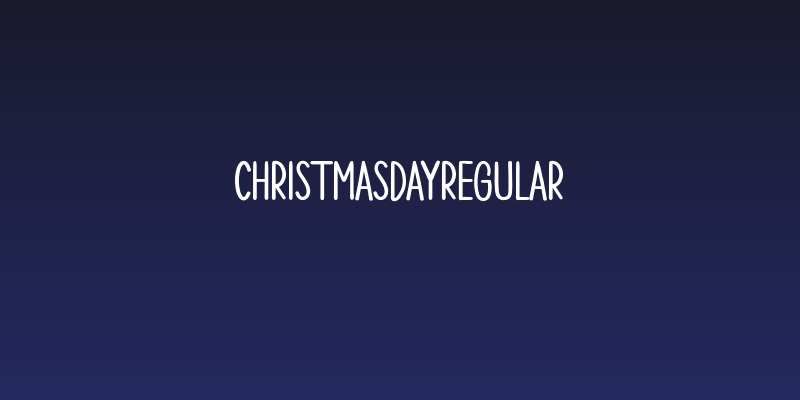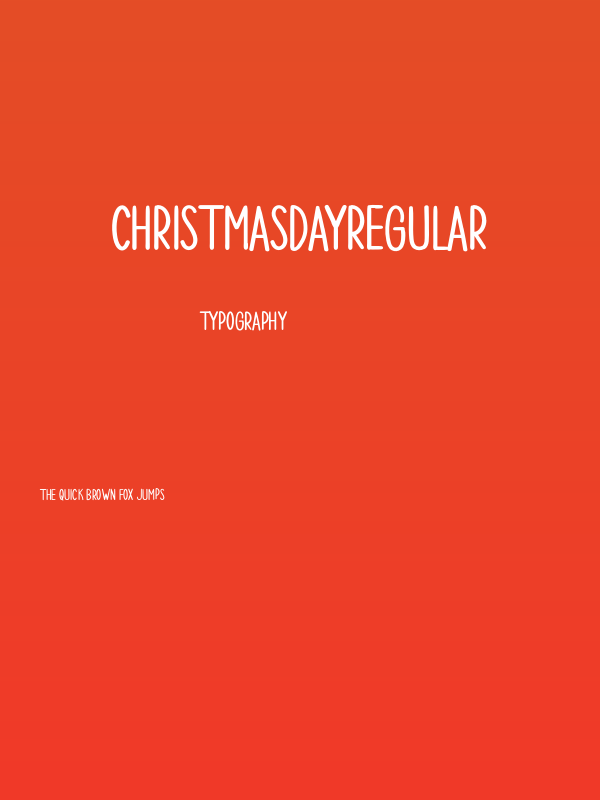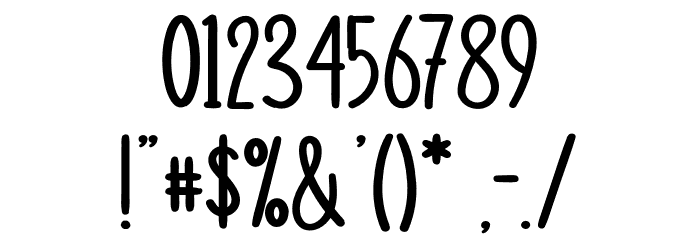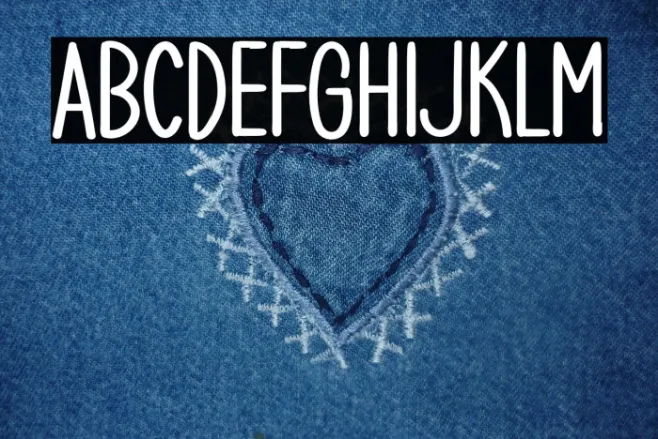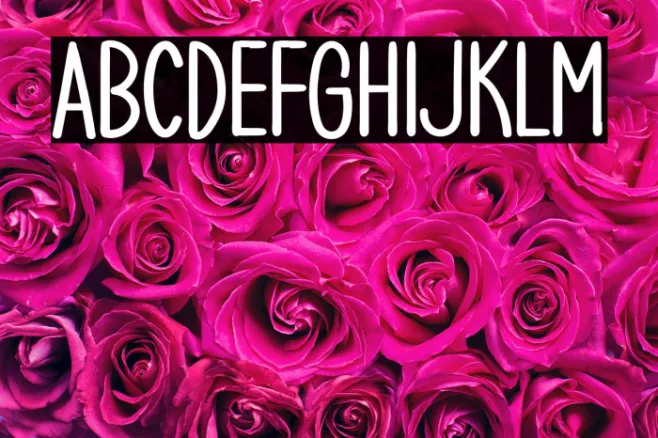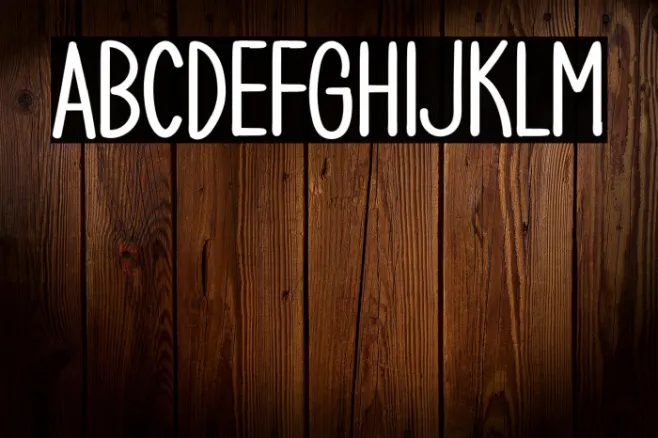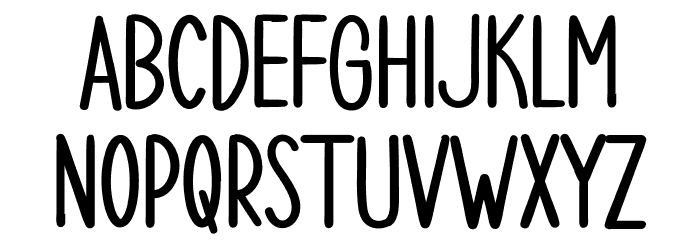
CHRISTMASDAYRegular Font
CHRISTMASDAYRegular Description
This font features a playful and festive style, characterized by its tall, narrow letters and rounded edges. The uppercase and lowercase letters maintain a consistent height, creating a uniform appearance. The numbers and special characters are designed with the same playful aesthetic, making them suitable for holiday-themed projects. The overall look is casual and friendly, with a touch of whimsy that captures the essence of a joyful celebration.
| Overall Style | Festive, Playful |
| Proposed Projects | Ideal for holiday cards, festive banners, party invitations, and seasonal marketing materials. |